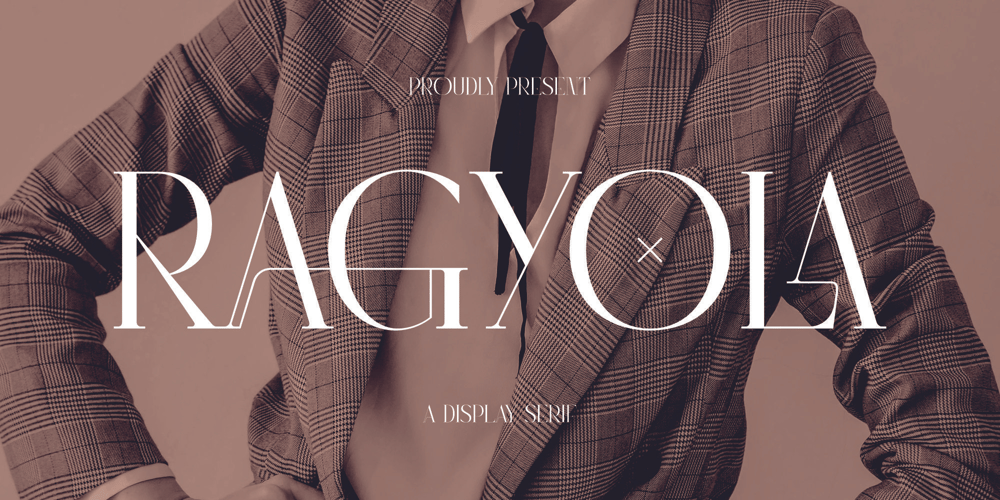
Ragyola
Ragyola font
Ragyola Font Family was designed by Heru Utama Putra and published by Letterena Studios. Ragyola contains 2 styles and family package options. Ragyola is a modern and classic serif typeface that has its own unique style and modern logo.This typeface is perfect for an elegant & luxurious logo, book or movie title design, fashion brand, magazine, clothes, lettering, quotes, and so much more.–Uppercase